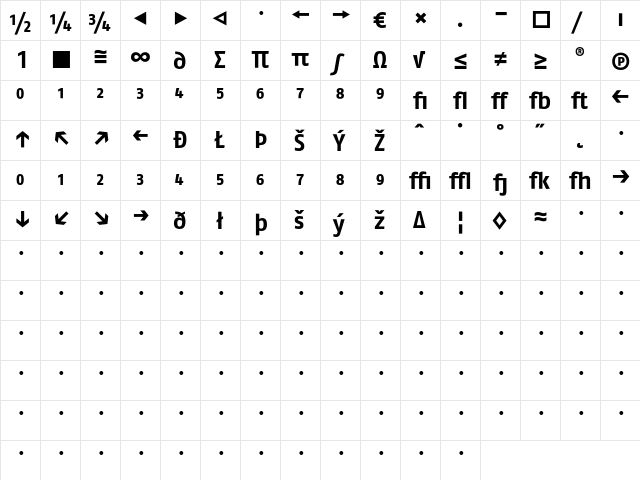
FagoNo BoldExpert
Design Context for FagoNo Typeface
FagoNo offers clean, dependable letterforms without strong stylistic allegiance, making it a practical choice for designers who need flexibility. The heavy weight commands attention and anchors typographic hierarchies.
Pro Tip: Pair FagoNo with a font of contrasting weight or personality to build a more expressive typographic hierarchy.